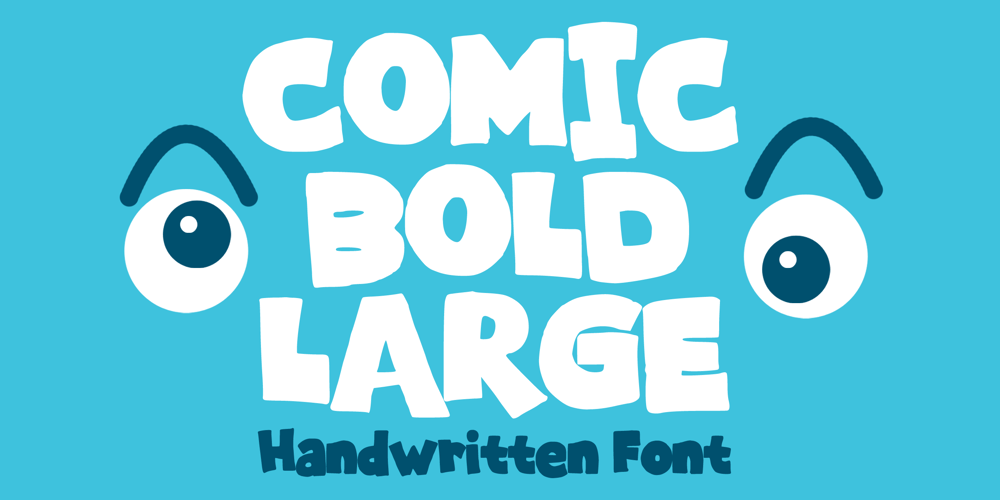
Comic Bold Large Font Family was designed by Gabriel Valentinus and published by Mvmet. Comic Bold Large contains 1 styles and family package options. Comic Bold Large is a fun bold cartoon display font for your everything needs! You can use it for anything ranging from t-shirts and clothing, for your kids book designs, kids party needs, greeting cards, stickers, posters, banners, or anything that needs a bold and fun touch. Try it to create fabulous designs and feel the fun and cheering vibes with it!